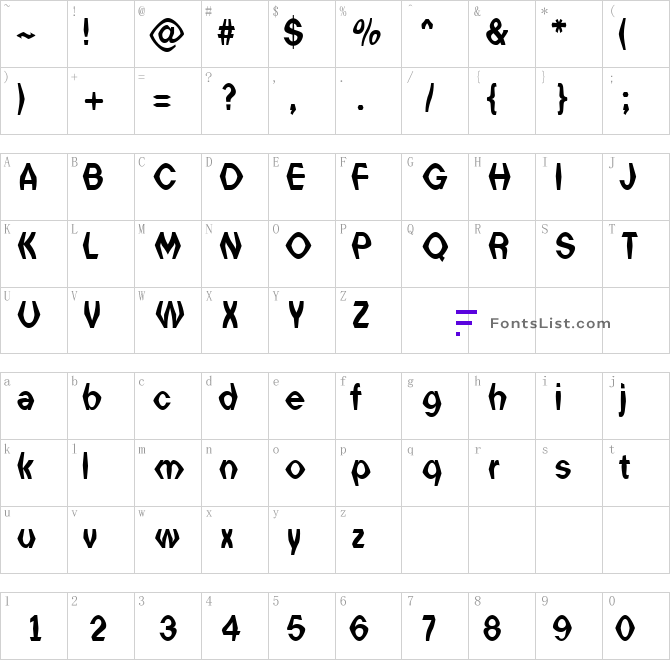
- Font Name:a_ReportSansFld
- Subfamily:ArsenalCompany: a_ReportSansFld Bold: 1998
- Full Name:a_ReportSansFld Bold
- PostScript:a_ReportSansFld-Bold
a_ReportSansFld-Bold.ttf is a very beautiful artistic font, a_ReportSansFld-Bold.ttf is widely used in the design and printing of various books and pictures,a_ReportSansFld-Bold.ttf has a strong visual impact,a_ReportSansFld-Bold.ttf is a commonly used font in newspapers, magazines and books, and is used in posters, e-commerce Poster design, store design, logo design, font design and other fields.a_ReportSansFld-Bold.